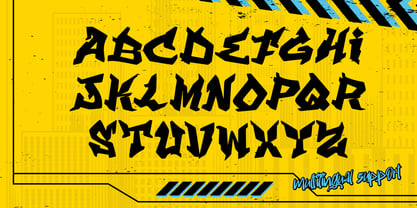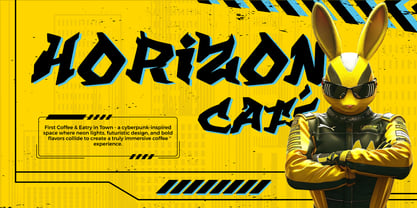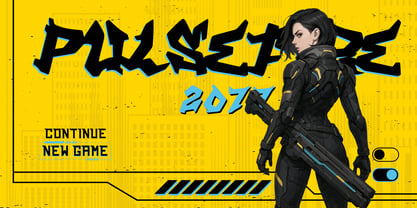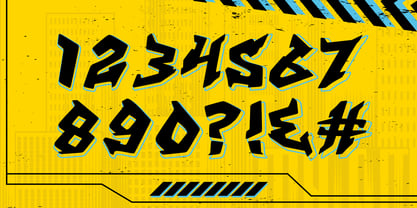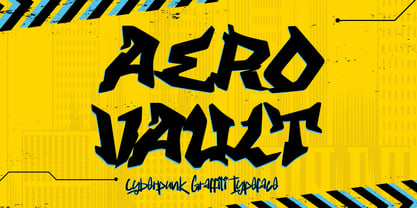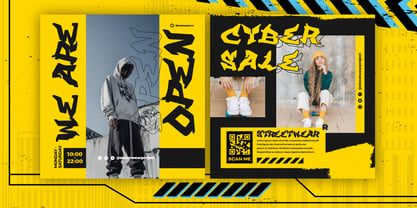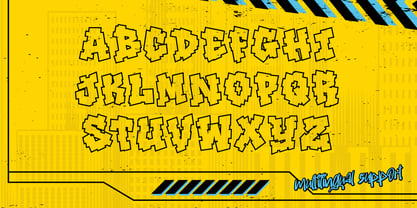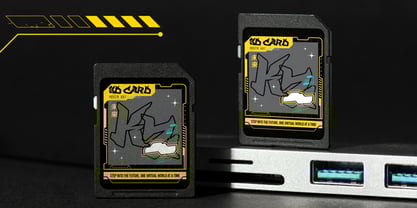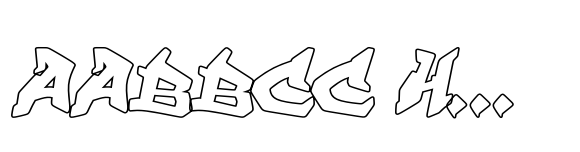
Aero Vault
Die Schriftfamilie Aero Vault wurde von Sipanji entworfen und von Sipanji21 veröffentlicht. Aero Vault enthält 2 Stile und Familienpaketoptionen.
Aero Vault is a modern cyberpunk graffiti typeface built for designers who thrive on energy, rebellion, and motion. It blends street culture with futuristic precision — graffiti’s raw power meeting the neon pulse of a digital metropolis. This font’s aggressive, angular strokes and confident curves bring to life the aesthetic of high-tech urban design. Inspired by sci-fi movies, digital interfaces, and cyber-tagged city walls, Aero Vault captures the electricity of a future where street art lives in holograms and data streams. Every letterform feels kinetic — sharp, balanced, and in motion. Its bold graffiti structure makes it perfect for creative projects that need both personality and intensity. It’s edgy enough for underground culture, yet refined enough for modern branding. Aero Vault includes Uppercase Letters, Numbers, and Punctuation, along with Multilingual Support and Stylistic Alternates to give you total creative freedom. The alternates allow you to explore expressive variations and graffiti-inspired compositions, keeping your work fresh and dynamic. Use Cases: Cyberpunk and futuristic branding Game and esports logos Streetwear and digital merchandise Album covers and sci-fi posters Techno events and social media campaigns Why Choose Aero Vault: Aero Vault captures motion, energy, and style in every line. It stands out from other graffiti fonts by combining street art’s organic flow with the hard-edged geometry of tech design. It’s versatile for use across physical and digital platforms, delivering striking results whether printed or displayed on screen. The design represents modern rebellion — structured chaos in a world powered by light and sound. Its mix of graffiti spontaneity and cybernetic precision makes it perfect for artists who live at the intersection of creativity and technology. Aero Vault isn’t just a font; it’s an attitude. It speaks the language of speed, neon, and rebellion — the future of graffiti.